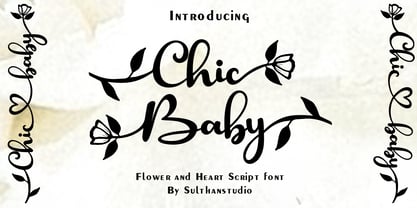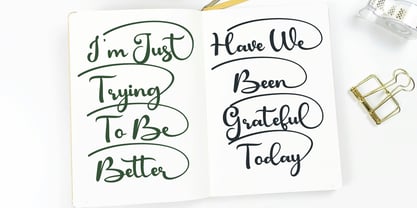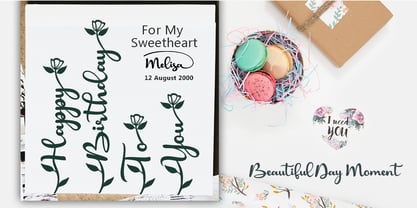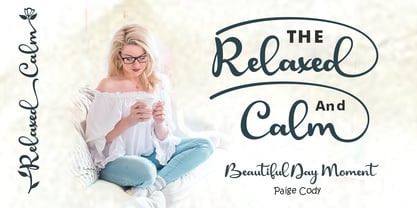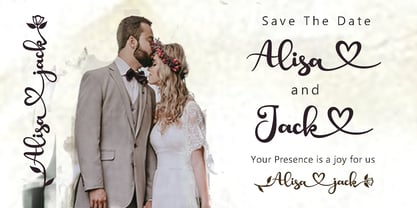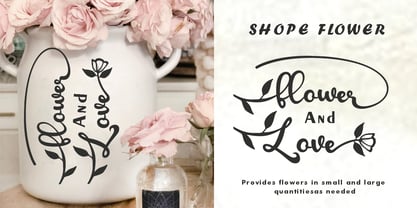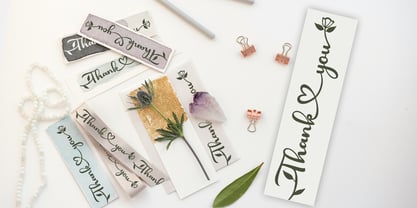
Chic baby
par Sulthan Studio
La famille de polices Chic baby a été conçue par Nasrullah et publiée par Sulthan Studio. Chic baby contient 1 styles.
Chic baby is a unique handwritten script font with flower and heart swashes as connectors and also has several other swashes to give a charming impression to any of your work.